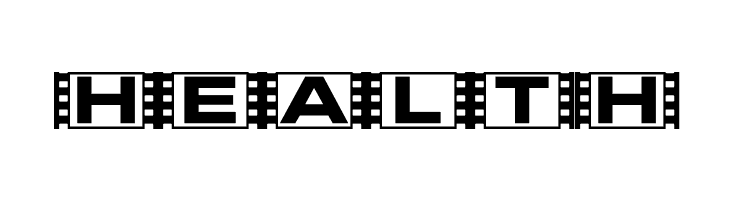
Fortuna Dot Font
A modern, dotted font with evenly spaced dots forming each character.
Famous Label Font
A decorative cursive font with elegant, flowing strokes and artistic flair.
Christmas Card II Font
An ornate, decorative font with a festive, gothic style.
Aarvark Cafe Font
A bold, italicized font with dynamic curves and strong serifs.
Celestia Medium Redux Font
A whimsical, bold font with playful, hand-drawn characteristics.
Alhambra Font
A bold, geometric font with calligraphic influences and a modern aesthetic.
Easter Parade Font
A bold, dynamic script font with playful curves and artistic flair.
Captain Howdy Font
A bold, decorative font with vintage-inspired serifs and thick strokes.
Thaleia Font
A bold, gothic-inspired font with sharp serifs and a dramatic presence.
Madfont Thorns Font
A bold, decorative font with thorn-like embellishments for a unique, edgy look.
BlockUp Font
A bold, 3D block-style font with a modern and industrial aesthetic.
Atlas Solid Font
A bold, geometric font with a modern and angular design.
12 to the Moon Font
A bold, futuristic font with rounded, abstract characters.
Pharmacy Font
A bold, vintage-inspired font with playful serifs and a decorative style.
Alhambra Deep Font
A bold, geometric font with strong strokes and sharp angles.
Heartland Regular Font
A bold, decorative font with heart motifs, perfect for romantic and playful designs.
Crazy Harold Font
A bold, playful font with exaggerated serifs and whimsical flair.
Pad Thai Font
A playful, modern font with bold strokes and decorative circular embellishments.
Farouk Font
A bold, striped font with a modern and artistic design.
Pharmacy MMX Font